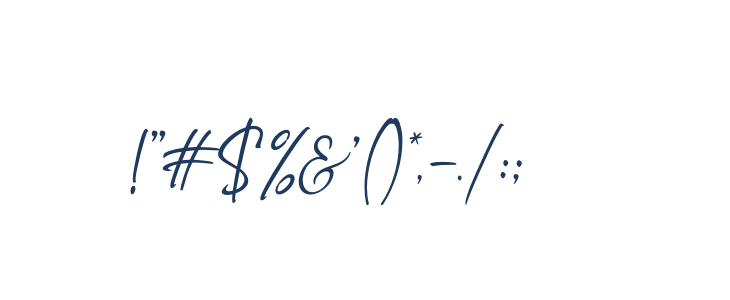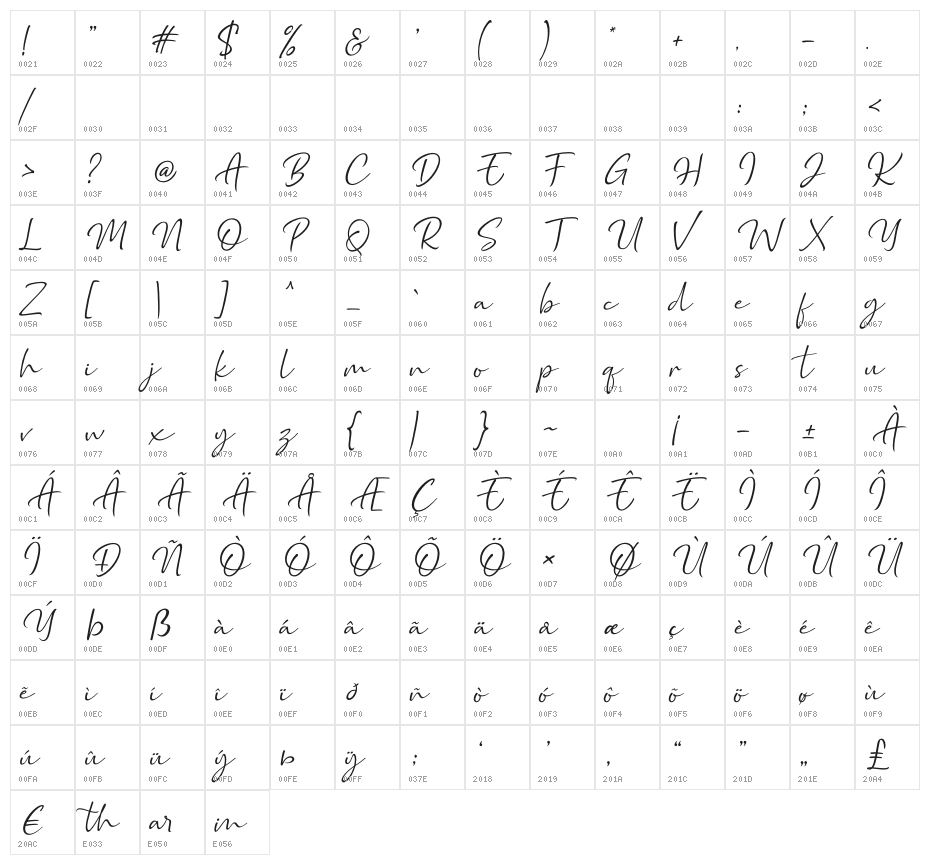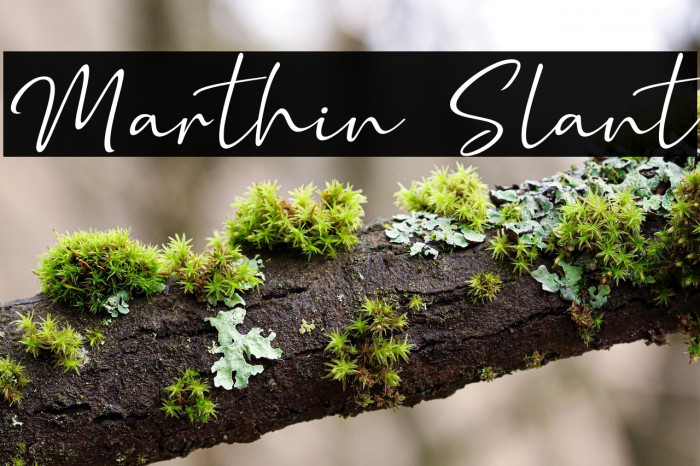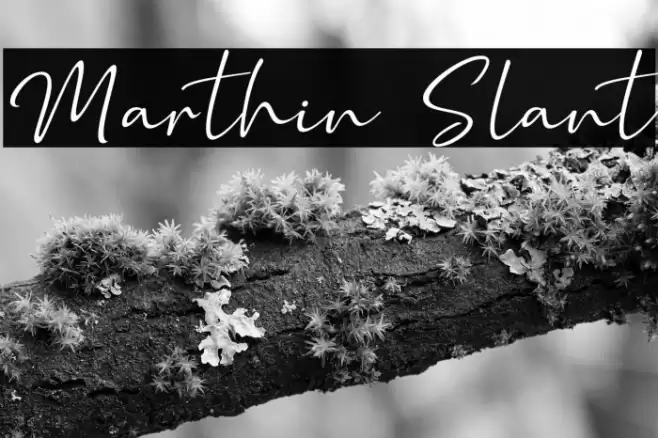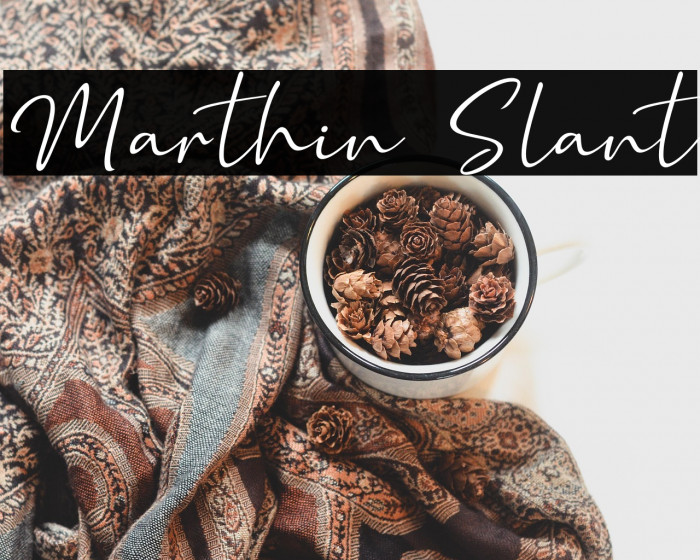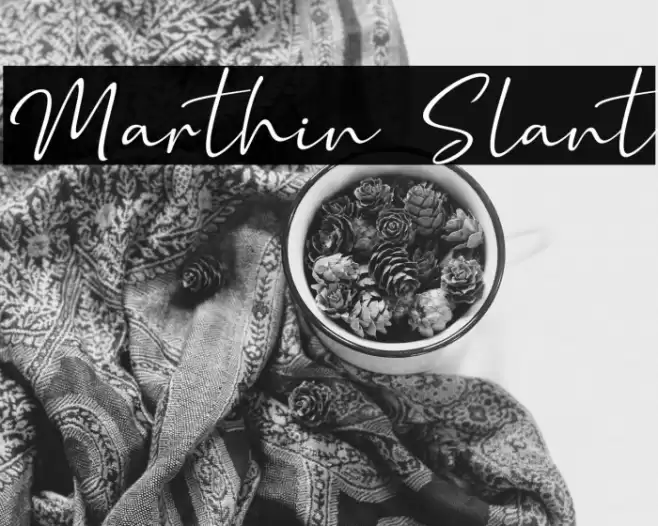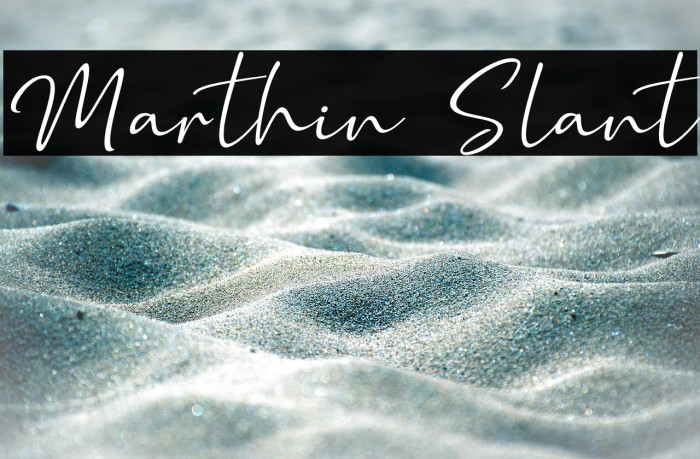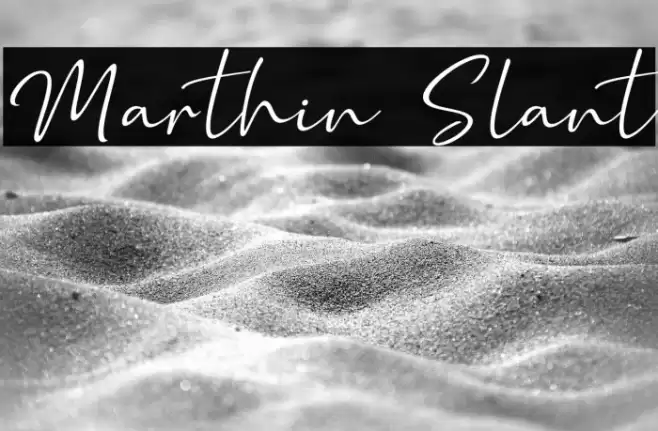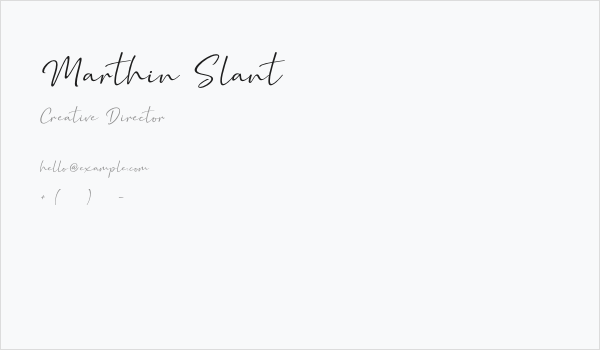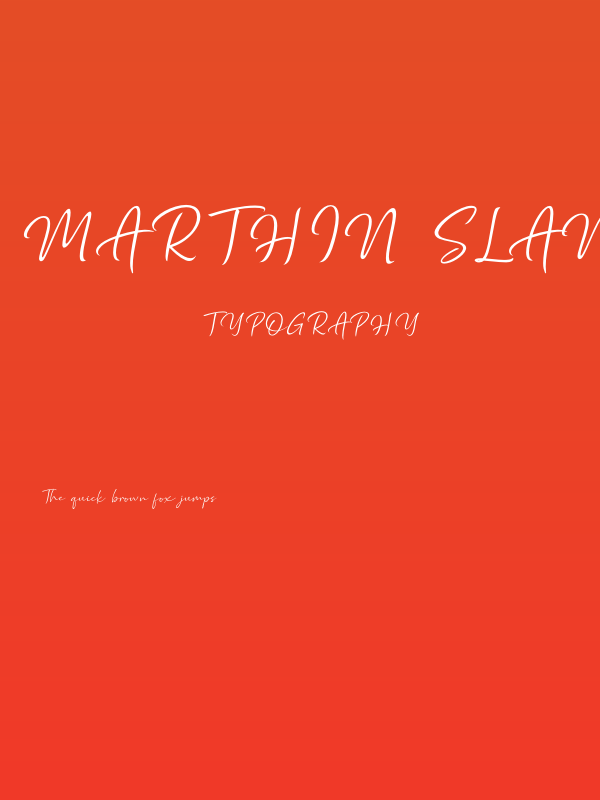
Marthin Slant Font
Marthin Slant Description
This font features a stylish and elegant script design with a slanted orientation, giving it a dynamic and flowing appearance. The uppercase letters are bold and expressive, while the lowercase letters maintain a consistent and fluid connection, enhancing readability. The numerals and special characters are crafted with the same attention to detail, ensuring a cohesive look across all elements. The strokes are smooth and slightly varied in thickness, adding a touch of sophistication. This font is perfect for projects that require a personal and artistic touch.
| Proposed Projects | Ideal for wedding invitations, greeting cards, branding, and elegant logo designs. |